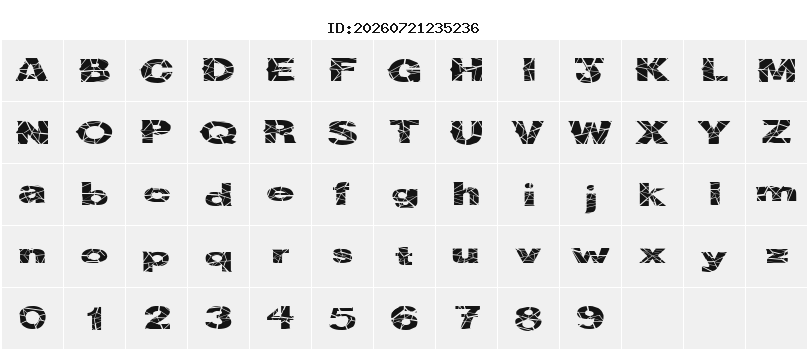
• Font Name: FZ JAZZY 36 CRACKED EX
• Font ID: FZ JAZZY 36 CRACKED EX
• Full Font Name: FZ JAZZY 36 CRACKED EX
• PostScript Name: FZ-JAZZY36CRACKEDEX
• Character Count: 177
About FZ JAZZY 36 CRACKED EX.ttf
FZ JAZZY 36 CRACKED EX.ttf is a modern, elegant sans-serif font designed for ultimate readability and visual harmony. Perfect for branding, headlines, web design, and print materials.